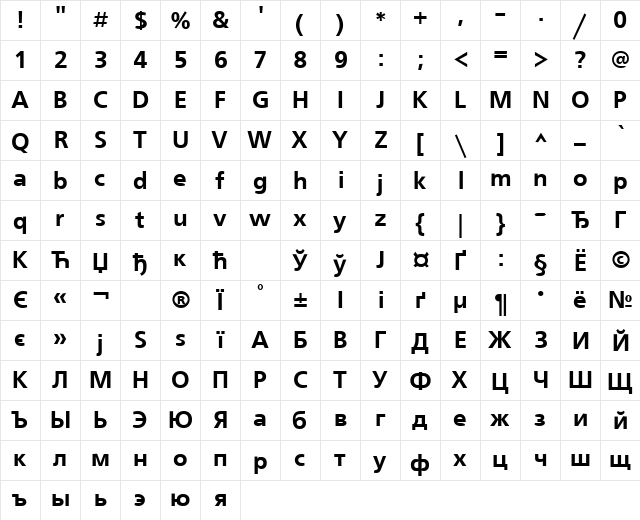
FreeSet Bold Font Preview
FreeSet Bold
Design Context for FreeSet Typeface
FreeSet offers clean, dependable letterforms without strong stylistic allegiance, making it a practical choice for designers who need flexibility. Its bold stroke weight gives it real presence on the page.